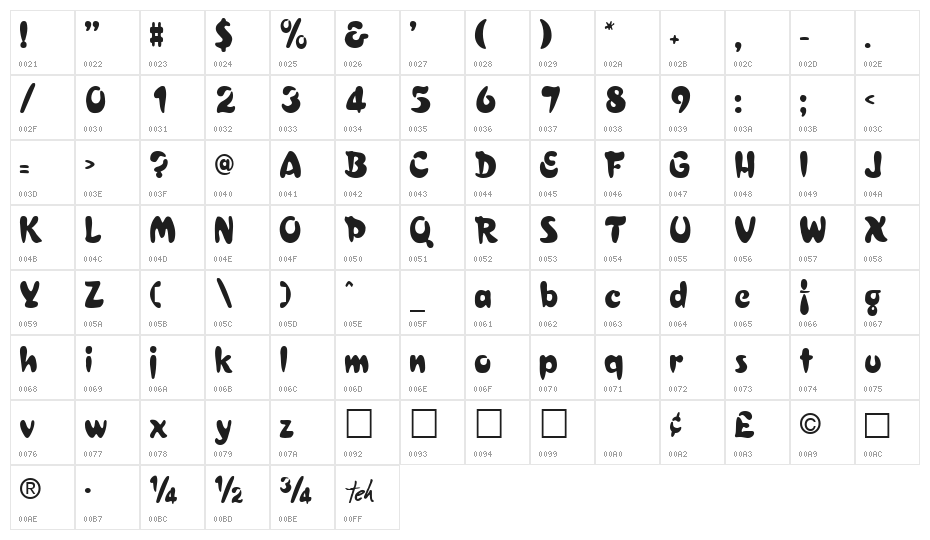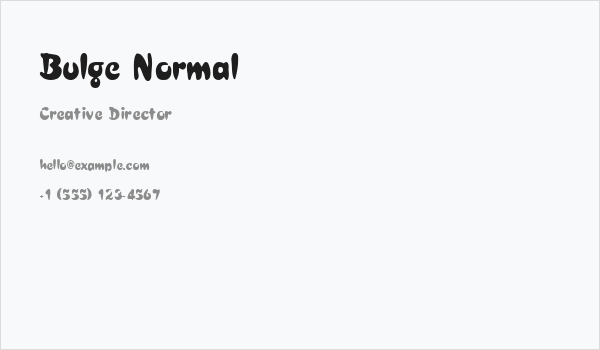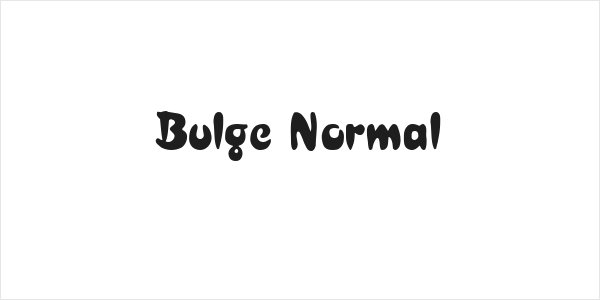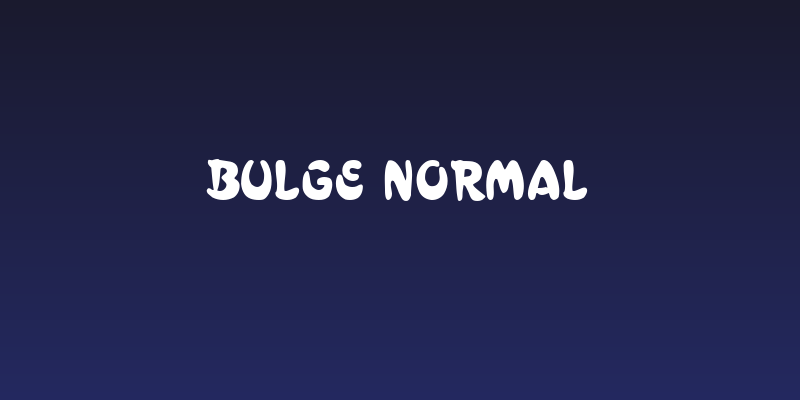
Bulge Normal Font
| Общий стиль | Playful |
| Область применения | Logos, Headlines, Posters |
| Рекомендуемые проекты | Ideal for children's books, playful branding, party invitations, and eye-catching posters. |